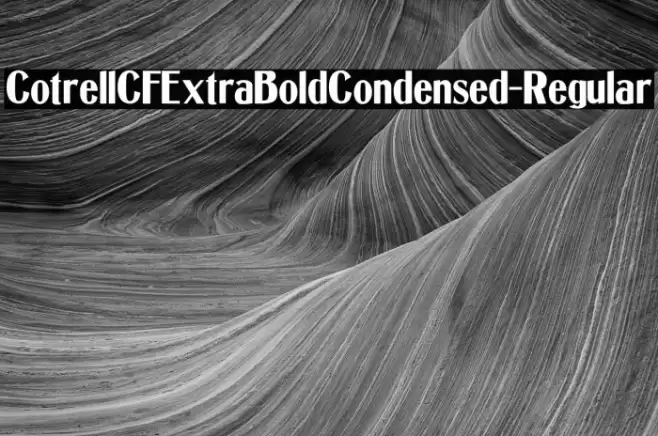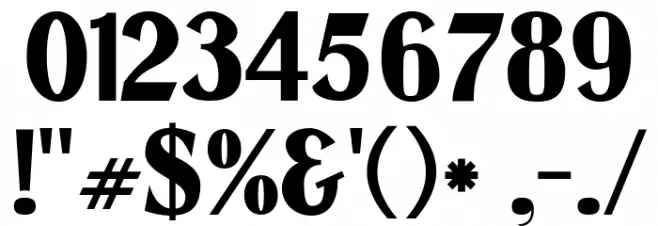
CotrellCFExtraBoldCondensed-Regular Font
CotrellCFExtraBoldCondensed-Regular Description
This font features a bold and condensed style, characterized by thick strokes and a strong presence. The uppercase letters are tall and commanding, while the lowercase letters maintain a consistent weight, providing a cohesive look. The numbers are equally bold, ensuring visibility and impact. Special characters are designed with the same boldness, making them stand out. The overall design is modern and assertive, suitable for making a statement in any design project.
A bold, condensed font with strong, impactful strokes from Uncategorized fonts.
- Proposed Projects: Ideal for headlines, posters, branding, and any project requiring a bold statement.
- Character Spacing: Tight